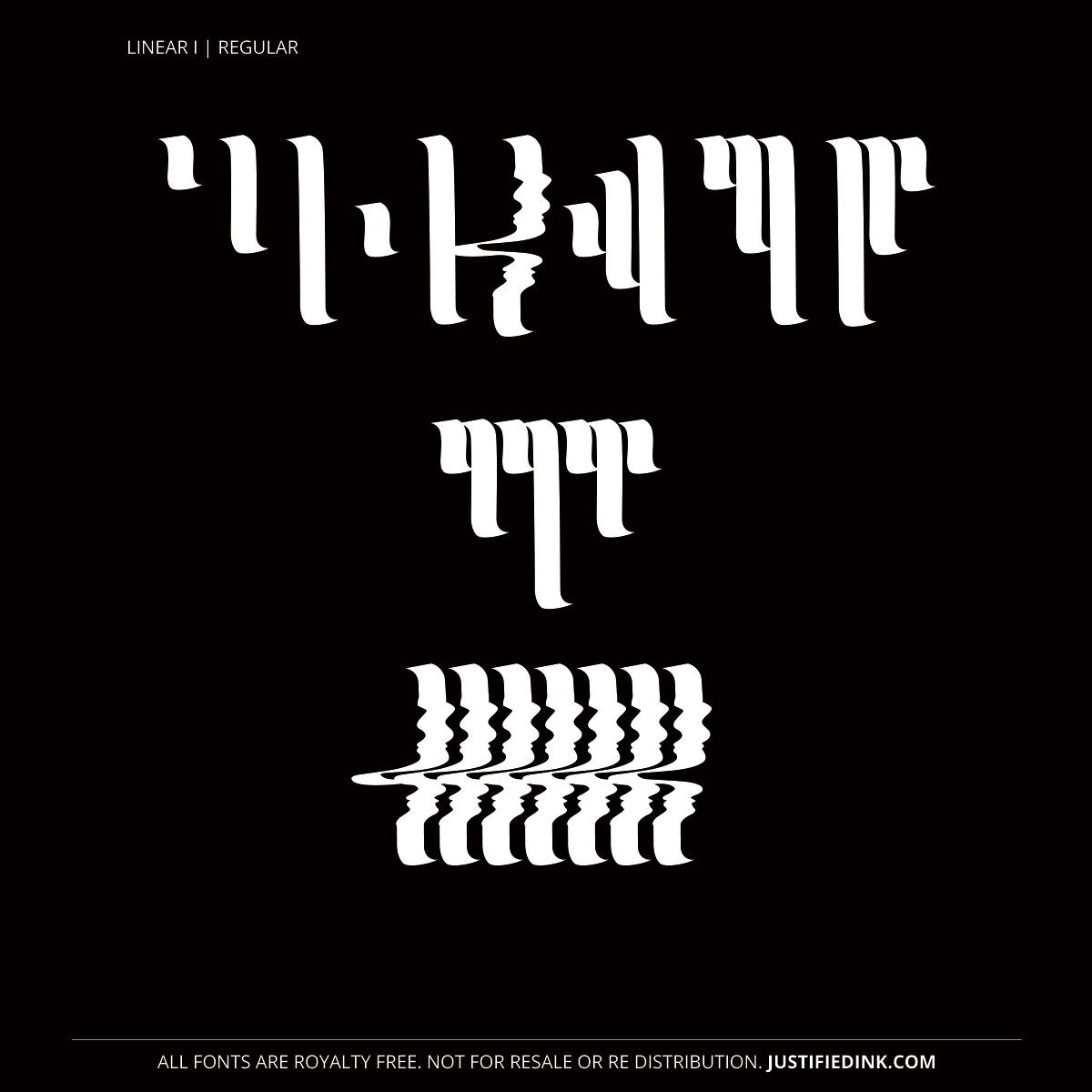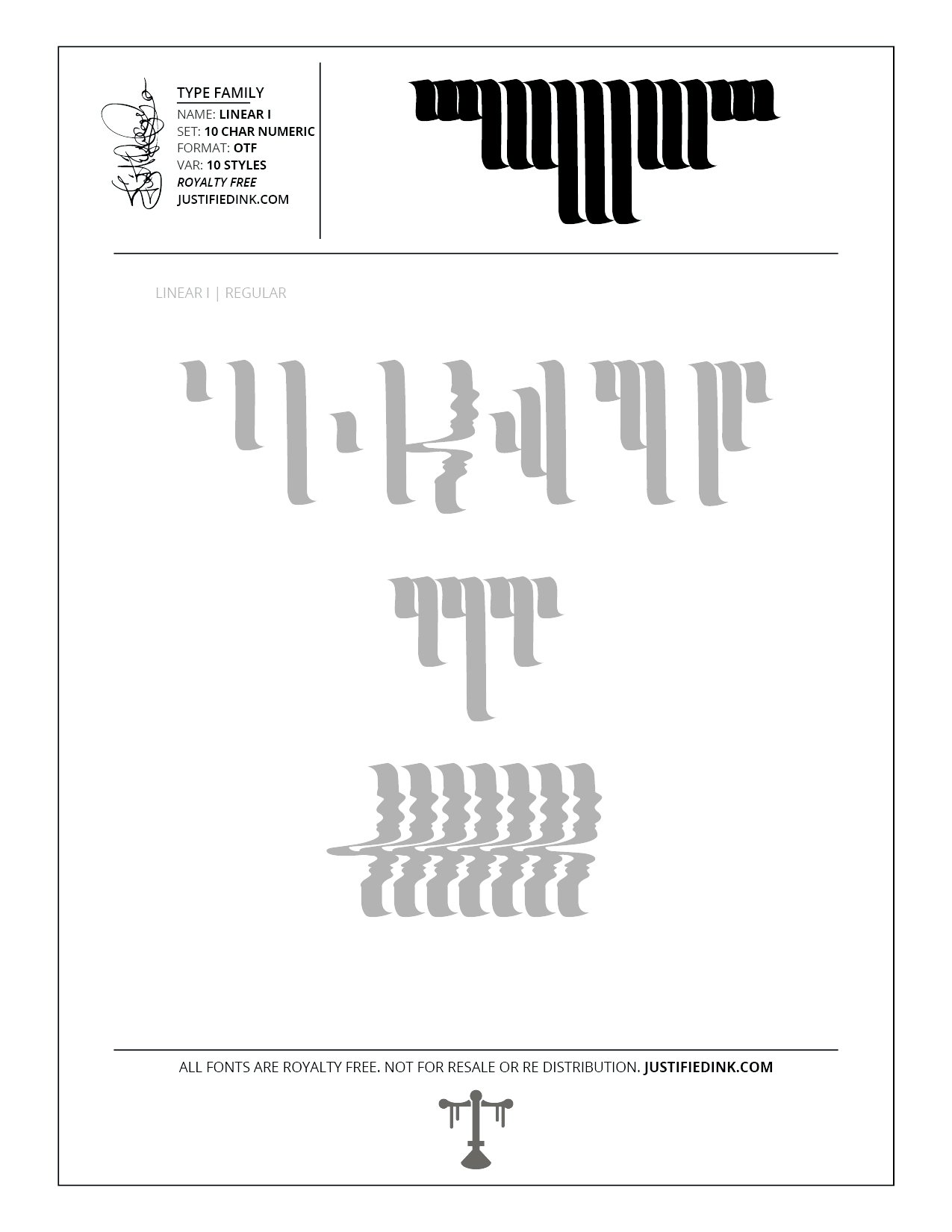
Linear I (1 style) - Custom Font by Justified Ink
NAME: Linear I
Linear I is an experiment to use the numerical keys to type decorative elements. Test the limits and watch them fall to the power of growth.
This font is part of the collection by Justified Ink, called Blackletter II. After 15+ years creating, I began to focus on building personal libraries of my work. The Blackletter II Collection was created through writing page after page, and countless hours over a 2 year span of daily practice. Each font from this collection has been hand drawn, manually vectored, and custom set as a type-able font. It comes in a full set of 10 char numeric. Each font family has variations in styles and/or non-alpha chars.